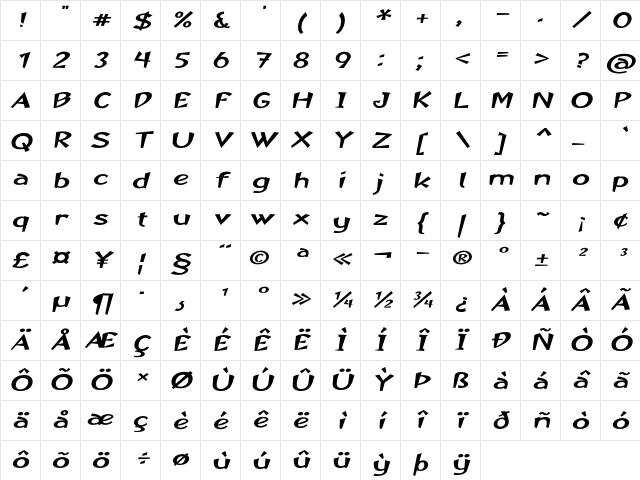
Edamame Expanded Bold Italic
Style: Expanded Bold Italic
Edamame Family
Design Context for Edamame
Edamame is a composed and adaptable typeface that performs quietly and consistently across a wide range of design contexts. The slanted form adds forward momentum and visual energy. Its bold stroke weight gives it real presence on the page.